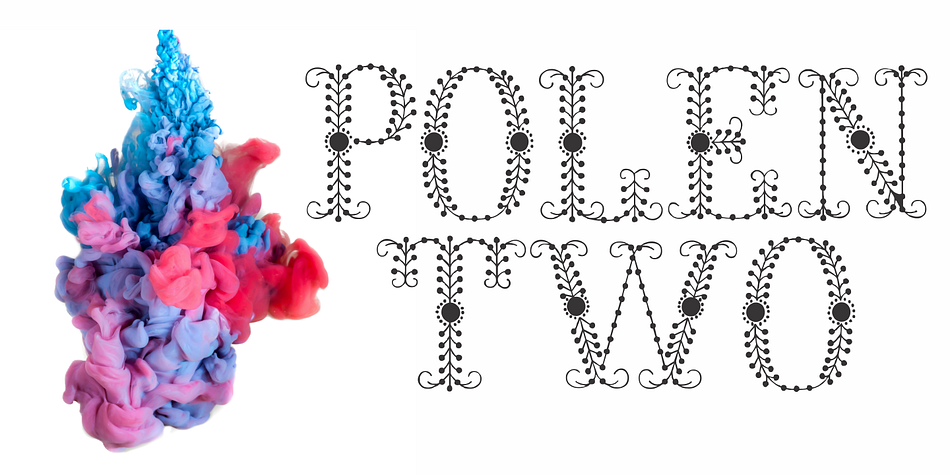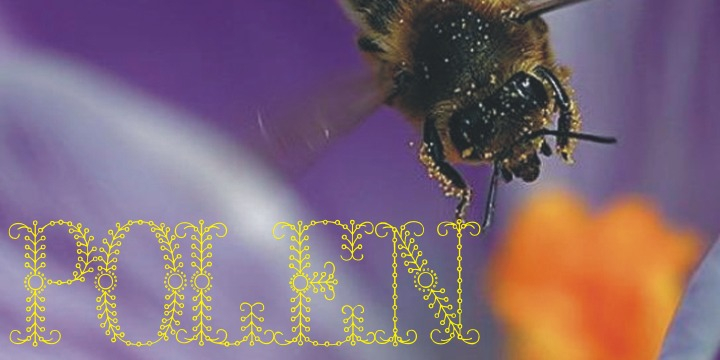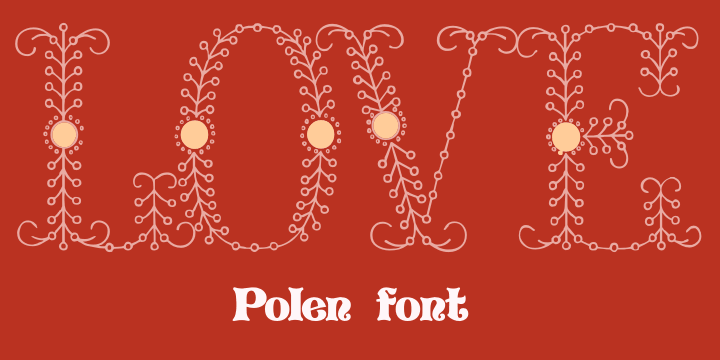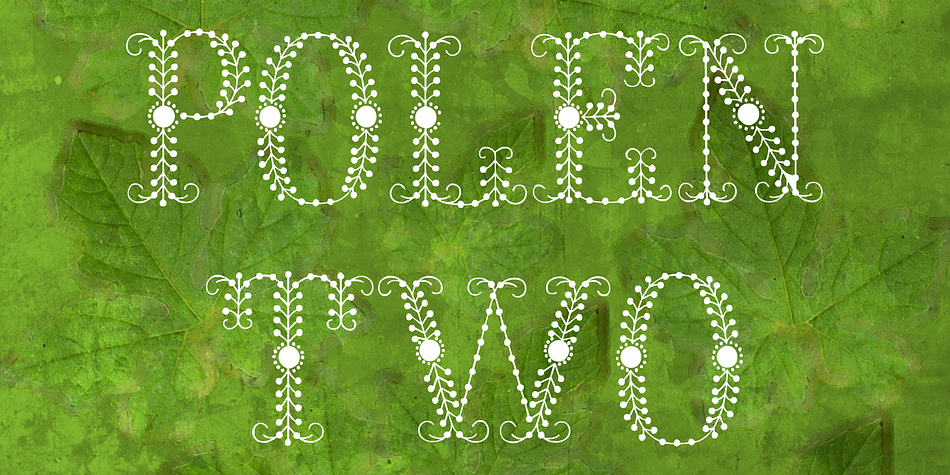
Polen is a novelty font family. This typeface has three styles and was published by Intellecta Design.
Polen is a soft, well elaborated and unusual font design. Works great when used for display reasons only. Contains only uppercase alphabet designs.